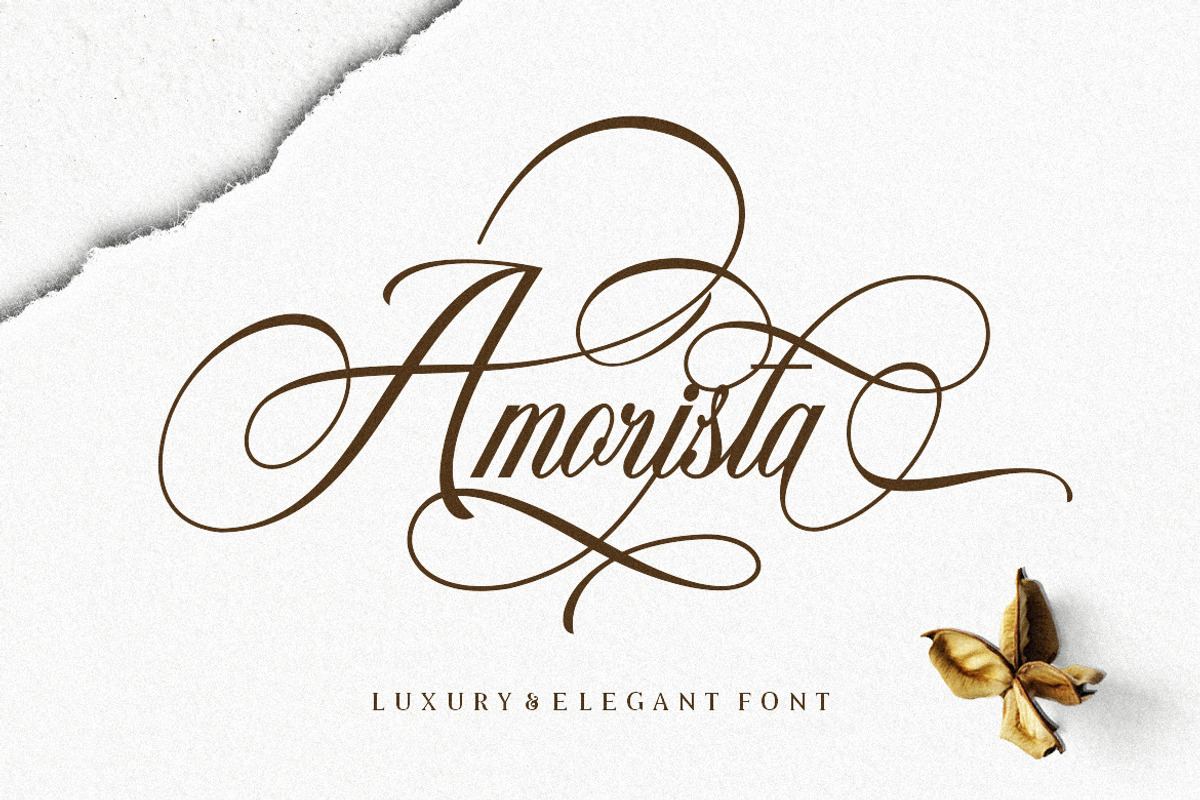
Amorista Font Free Download is a delicate and elegant script typeface that captures the essence of romance and sophistication. With graceful curves, flowing lines, and a handwritten charm, Amorista is perfect for wedding invitations, branding, love-themed quotes, social media graphics, and upscale packaging.
Its stylish and feminine feel adds warmth and emotion to any project. Whether you're designing for bridal events, floral boutiques, or lifestyle blogs, Amorista brings a soft, personal touch that feels timeless and heartfelt.
Designers love Amorista for its balance of beauty and readability, making it ideal for both digital and print use. Want to infuse your typography with elegance and emotion? Download Amorista Font Free Download and let your designs speak the language of love.